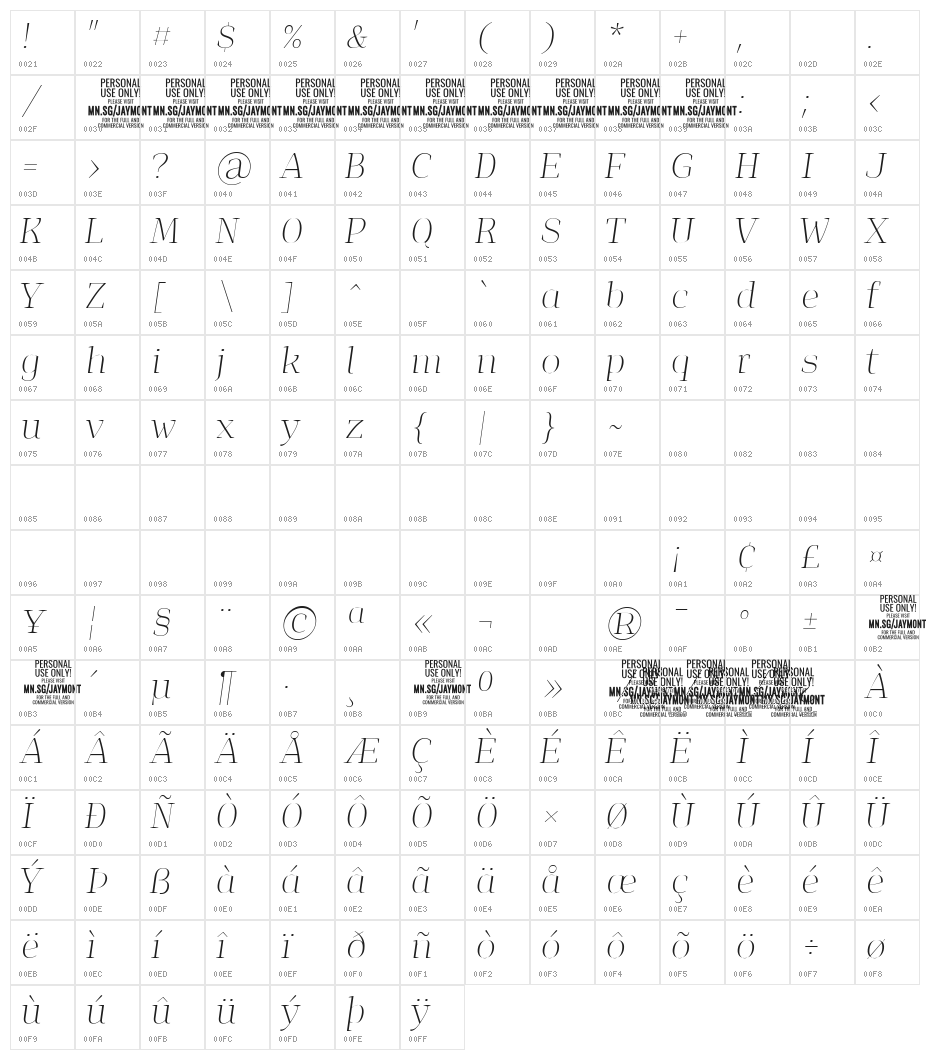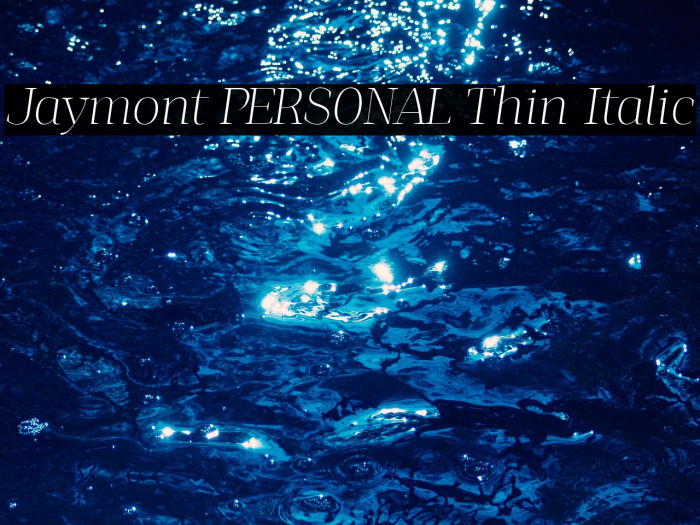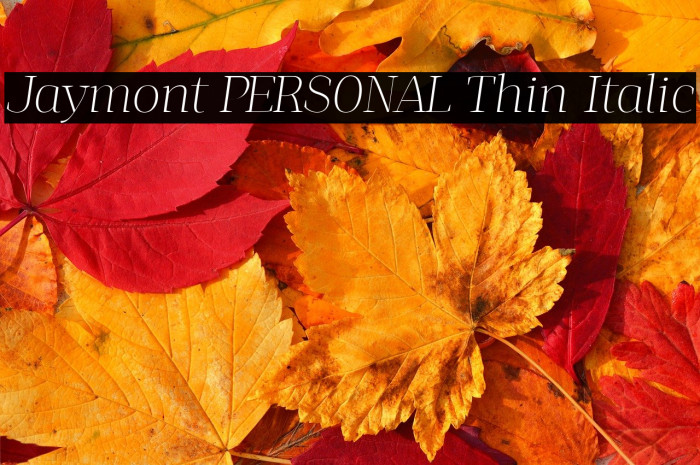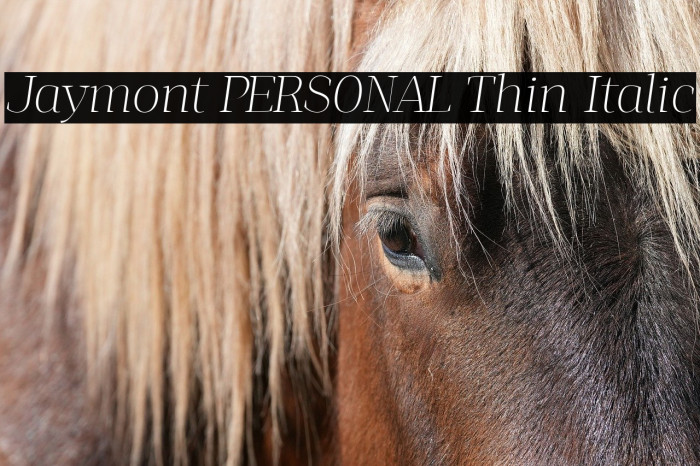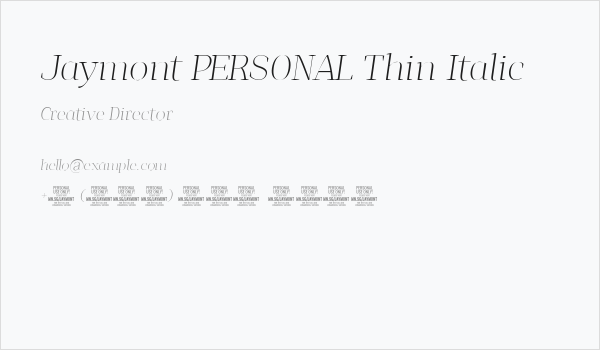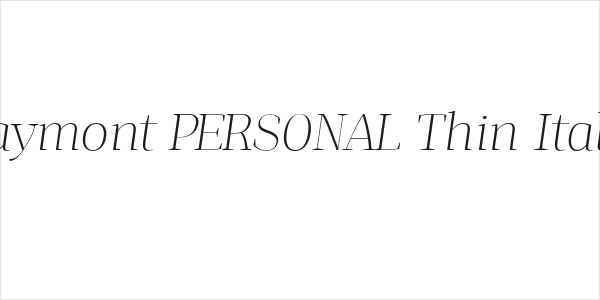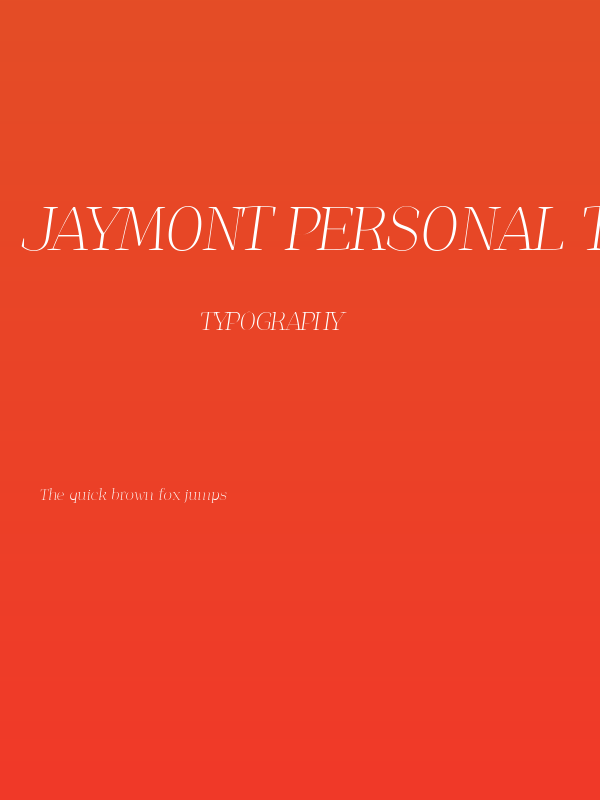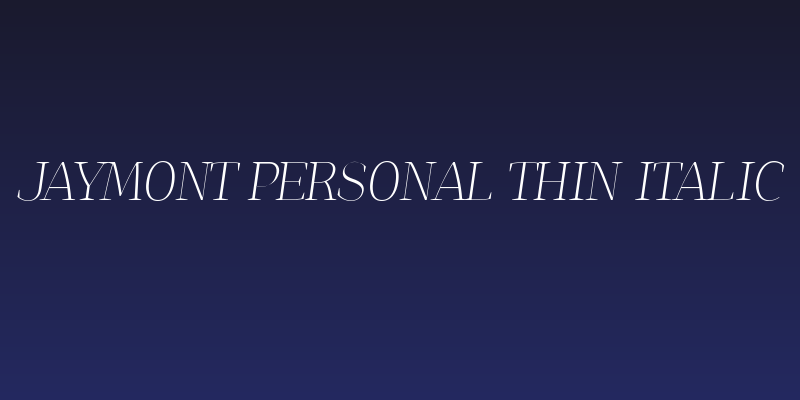
Jaymont PERSONAL Thin Italic Font
Jaymont PERSONAL Thin Italic Description
This font features an elegant and refined design, characterized by its thin, italicized strokes that convey a sense of sophistication and modernity. The letters are slightly slanted, adding a dynamic and fluid appearance to the text. The font maintains a consistent thinness throughout, with smooth curves and sharp edges that enhance its sleek aesthetic. The uppercase and lowercase letters are well-proportioned, ensuring readability while maintaining an artistic flair. The numerals and special characters are designed to complement the overall style, providing versatility for various design needs.
Use CaseHeadlines, Logos, Invitations
Proposed ProjectsIdeal for fashion magazines, luxury branding, elegant invitations, and modern editorial designs.